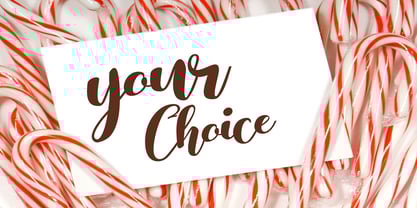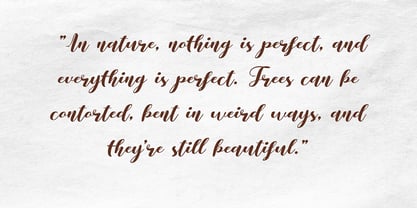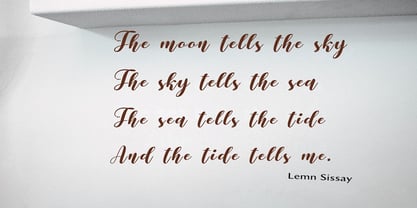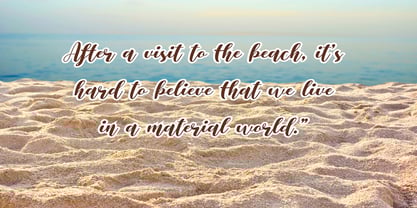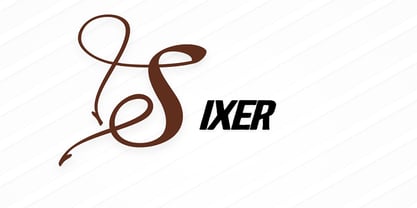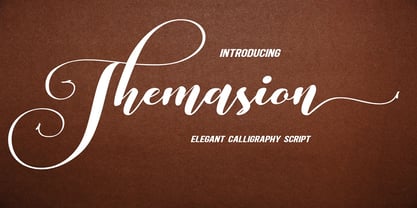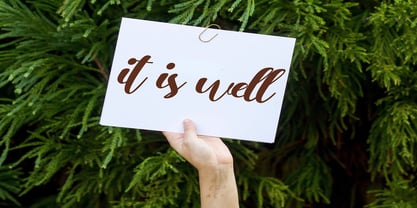
Themasion Script
by Dream Font
The Themasion Script Font Family was designed by Mark Jamra and published by Dream Font. Themasion Script contains 1 styles. More about this family
Themasion is a sweet and cursive handwritten font. This gentle font will look gorgeous on a variety of design ideas. It will add a joyful and romantic touch to each of your projects! Perfectly fit for branding, logo, wedding things, greeting cards, fashion, lookbook, marketing promotion, and any time you want your design to look fancy and elegant but still casual.
Designers: Mark Jamra
Foundry: Dream Font